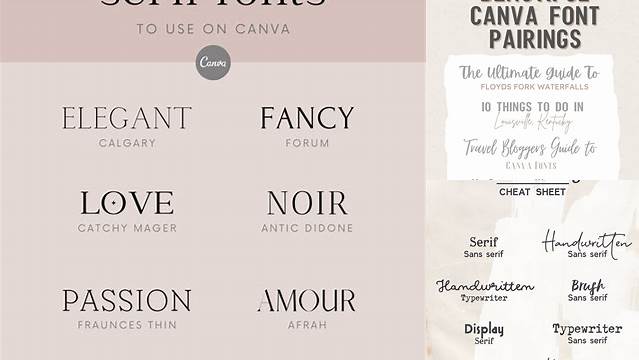
Elegant Fonts In Canva: Elevate Your Designs
Hey guys! Ever wondered how to make your Canva designs really pop? It all starts with the fonts you choose! Selecting the right font can transform a good design into a great design, adding a touch of elegance and professionalism that truly captivates your audience. If you're looking for elegant Canva fonts to elevate your designs, you've come to the right place. This guide will walk you through everything you need to know about choosing and using elegant fonts in Canva, helping you create stunning visuals that leave a lasting impression. Think of fonts as the voice of your design β they convey personality, mood, and tone. An elegant font can whisper sophistication, exude confidence, or radiate classic beauty. Mastering the art of font selection is key to unlocking the full potential of your creative projects. So, let's dive into the world of typography and explore the best elegant fonts Canva has to offer, along with tips and tricks to use them effectively. We'll cover everything from understanding font pairings to avoiding common pitfalls. Ready to become a font-savvy designer? Let's get started!
Why Elegant Fonts Matter
Why are elegant fonts so important in design? Well, think about it this way: your font choice is the first impression your design makes. An elegant font can instantly communicate a sense of sophistication, luxury, or refinement. Itβs like choosing the perfect outfit for a special occasion β it sets the tone and makes you feel confident. Elegant fonts are particularly crucial when you're aiming for a high-end or professional aesthetic. Imagine designing a wedding invitation, a luxury brand's logo, or a sophisticated marketing campaign. In these scenarios, an elegant font is non-negotiable. It's the secret ingredient that elevates your design from ordinary to extraordinary. But it's not just about aesthetics; elegant fonts also play a crucial role in readability and user experience. A well-chosen font ensures that your message is not only beautiful but also easily legible. This is especially important for longer texts, such as blog posts or website content. A cluttered or difficult-to-read font can deter your audience, while an elegant and clear font can keep them engaged. The psychology of fonts is fascinating. Different fonts evoke different emotions and associations. Elegant fonts often convey feelings of trust, professionalism, and quality. They can also add a touch of personality and uniqueness to your brand. The key is to understand the nuances of different font styles and choose the one that best reflects your message and brand identity. So, when you're selecting a font for your next Canva project, remember that elegance is more than just a visual appeal; it's a powerful communication tool.
Top Elegant Fonts in Canva
Okay, let's get down to the nitty-gritty! Canva is packed with elegant font options, but knowing where to start can be overwhelming. I'm going to share some of my absolute favorite elegant fonts in Canva, along with tips on how to use them effectively. First up, we have Playfair Display. This classic serif font is a go-to for headings and titles. Its high contrast and delicate serifs exude sophistication and make it perfect for projects that need a touch of formality, like invitations or magazine layouts. Pair it with a simple sans-serif font like Montserrat for body text to create a balanced and readable design. Next, let's talk about Lora. Lora is another beautiful serif font, but it has a slightly more contemporary feel than Playfair Display. It's incredibly versatile and works well for both headings and body text. Lora's slightly curved serifs add a touch of personality and make it a great choice for projects that need a blend of elegance and approachability. If you're looking for a more modern and minimalist elegant font, Raleway is an excellent choice. This sans-serif font has a clean and sophisticated look, making it ideal for logos, websites, and branding materials. Raleway's versatility allows it to shine in a variety of design contexts, from business cards to presentations. Don't forget about Bodoni Moda. This font screams high-fashion and luxury. Its strong, contrasting strokes and elegant serifs make it a statement font, perfect for headlines and titles. Use it sparingly, as it can be quite bold, but when used correctly, it adds a serious dose of glamour to your designs. For a touch of romance and whimsy, Mrs. Eaves OT is a fantastic option. This elegant serif font has a beautiful calligraphic feel, making it perfect for wedding invitations, greeting cards, and other projects that need a personal touch. Finally, we have Cormorant Garamond. This font is a modern take on the classic Garamond typeface. It's incredibly elegant and readable, making it a great choice for both headings and body text. Cormorant Garamond's timeless appeal makes it a versatile addition to any designer's font toolkit. These are just a few of the many elegant fonts available in Canva. Experiment with different options and find the ones that best suit your style and project needs. Remember, the key is to choose fonts that not only look beautiful but also communicate your message effectively.
How to Pair Elegant Fonts
Font pairing can be tricky, but it's a crucial skill for any designer. When it comes to elegant font pairings, the goal is to create a harmonious balance between different typefaces. You want your fonts to complement each other, not compete. One of the most common and effective font pairing strategies is to combine a serif font with a sans-serif font. Serifs, with their small decorative strokes, tend to have a more traditional and elegant feel, while sans-serifs, which lack these strokes, are often perceived as more modern and clean. Pairing these two styles can create a visually appealing contrast that's both elegant and readable. For example, you could pair Playfair Display (a serif) for your headings with Montserrat (a sans-serif) for your body text, as mentioned earlier. This combination creates a classic and sophisticated look that's perfect for a wide range of projects. Another great pairing is Lora (a serif) with Open Sans (a sans-serif). Lora's slightly curved serifs add a touch of personality, while Open Sans provides a clean and neutral backdrop for body text. If you're feeling a bit more adventurous, you can try pairing two different serif fonts. However, this can be a bit more challenging, as it's easy for the fonts to clash if they're too similar. When pairing two serifs, look for fonts that have contrasting styles and weights. For instance, you could pair Bodoni Moda (a bold serif) for headlines with Cormorant Garamond (a more delicate serif) for body text. This creates a dynamic contrast that's both elegant and eye-catching. Another tip for successful font pairing is to limit yourself to two or three fonts per project. Using too many fonts can make your design look cluttered and unprofessional. Stick to a consistent font pairing throughout your design to maintain a cohesive and polished look. Canva offers a fantastic feature that suggests font pairings, making it easier to find combinations that work well together. Experiment with these suggestions and see what resonates with you. Remember, font pairing is an art, not a science. Trust your instincts and don't be afraid to try new things. The more you experiment, the better you'll become at creating elegant and harmonious font pairings.
Tips for Using Elegant Fonts in Canva
Now that we've explored some of the best elegant fonts in Canva and how to pair them, let's dive into some practical tips for using them effectively in your designs. First and foremost, consider your audience and the overall message you're trying to convey. An elegant font might be perfect for a wedding invitation or a luxury brand's logo, but it might not be the best choice for a playful children's book or a casual blog post. Think about the tone and style of your project and choose fonts that align with it. Another important tip is to pay attention to font size and spacing. An elegant font can lose its impact if it's too small or too tightly packed. Make sure your text is legible and easy to read, even at a distance. Experiment with different font sizes and line heights to find the sweet spot that maximizes readability without sacrificing elegance. Kerning, the spacing between individual letters, is another crucial factor to consider. Adjusting the kerning can significantly improve the overall look and feel of your text, especially with elegant fonts that often have intricate letterforms. Canva allows you to adjust kerning easily, so take advantage of this feature to fine-tune your typography. Color is also a key element in typography. When using elegant fonts, consider using sophisticated color palettes that complement the font's style. Neutral colors like black, white, and gray are always safe bets, but you can also experiment with muted tones and soft pastels for a more subtle and elegant look. Metallic colors like gold and silver can also add a touch of luxury and glamour. Avoid using overly bright or garish colors, as they can detract from the font's elegance. Remember, less is often more when it comes to using elegant fonts. Don't overcrowd your design with too much text or too many decorative elements. Let the fonts breathe and allow their elegance to shine through. Use white space effectively to create a clean and balanced design. Finally, always preview your design before finalizing it. Print it out or view it on different devices to ensure that the fonts look good in various contexts. Pay attention to any potential readability issues and make adjustments as needed. By following these tips, you can confidently use elegant fonts in Canva to create stunning designs that leave a lasting impression.
Even with the best elegant fonts and the best intentions, it's easy to make typography mistakes that can undermine your design. Let's look at some common pitfalls to avoid so your designs always shine. One of the biggest mistakes is using too many fonts. As we discussed earlier, sticking to two or three fonts per project is generally a good rule of thumb. Using too many fonts can create a cluttered and chaotic look, diluting the elegance you're aiming for. Another common mistake is choosing fonts that are too similar. While you want your fonts to complement each other, they also need to have enough contrast to stand out. Pairing fonts that are too alike can result in a design that looks bland and uninspired. Pay attention to font weights as well. Using too many heavy or bold fonts can overwhelm your design, while using too many light or thin fonts can make your text difficult to read. Vary your font weights to create visual interest and hierarchy. Avoid using decorative or script fonts for large blocks of text. While these fonts can be beautiful, they're often challenging to read in long paragraphs. Save them for headings or short phrases where readability isn't as critical. Never underestimate the importance of line height and spacing. Cramped text can be difficult to read and can detract from the overall elegance of your design. Adjust the line height and letter spacing to ensure that your text is comfortable to read and visually appealing. Watch out for widows and orphans β those lonely words or short lines that appear at the end of a paragraph or column. They can disrupt the flow of your text and make your design look unprofessional. Adjust your text or margins to eliminate them. Be mindful of font licensing. Some fonts are free for personal use but require a license for commercial use. Make sure you have the appropriate license for any fonts you use in your projects, especially if you're creating designs for clients or for sale. Finally, always proofread your text carefully. Typos and grammatical errors can undermine even the most elegant design. Take the time to double-check your text before finalizing your project. By avoiding these common mistakes, you can ensure that your typography is always on point and that your designs exude the elegance and sophistication you're aiming for.
So, there you have it! A comprehensive guide to using elegant fonts in Canva. From understanding why elegant fonts matter to exploring top font choices, mastering font pairings, and avoiding common mistakes, you're now equipped to create stunning designs that exude sophistication and style. Remember, typography is a powerful design tool. By choosing the right fonts and using them effectively, you can elevate your projects and communicate your message with clarity and elegance. Don't be afraid to experiment and try new things. Canva offers a vast library of fonts and design features, so there's always something new to discover. Practice makes perfect, so keep honing your typography skills and pushing your creative boundaries. Whether you're designing wedding invitations, branding materials, social media graphics, or anything in between, elegant fonts can help you create designs that stand out and leave a lasting impression. Embrace the power of typography and let your creativity shine! Now go forth and create something beautiful! And remember, guys, choosing the perfect font is like picking the perfect accessory for an outfit β it can make all the difference! Happy designing!